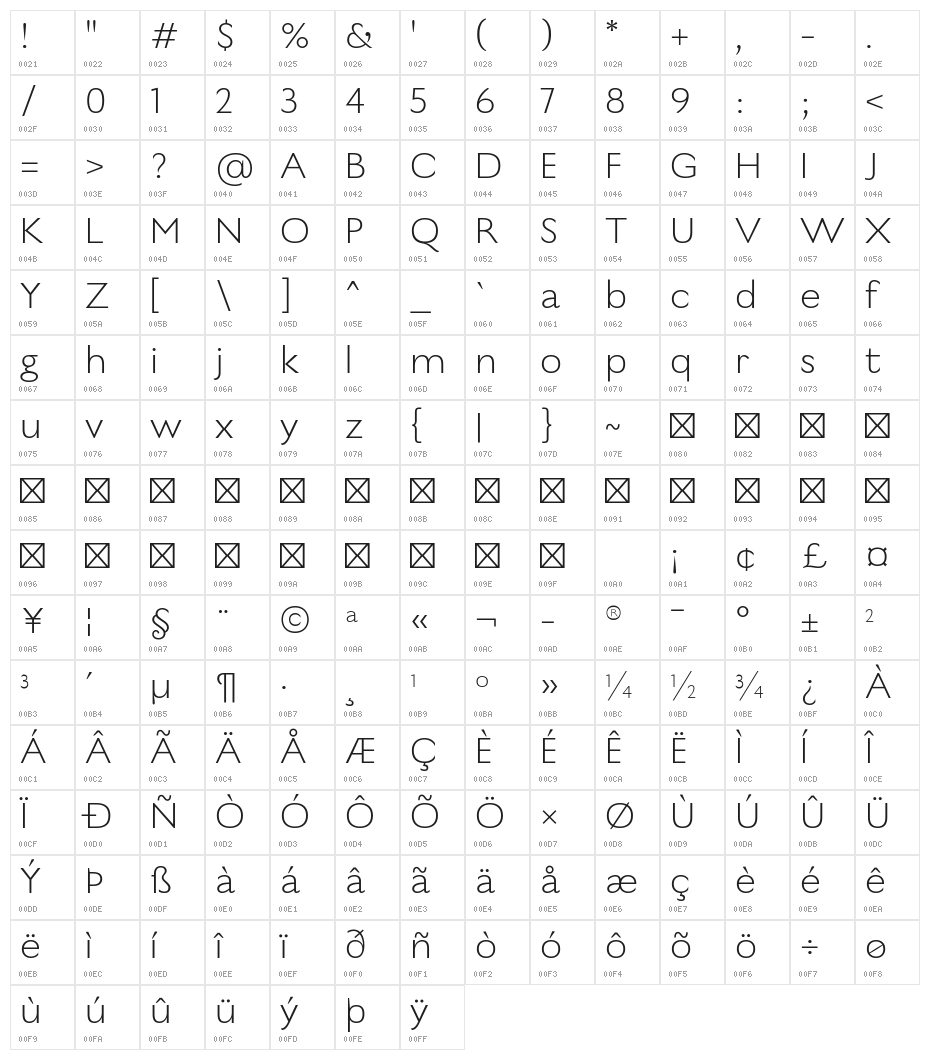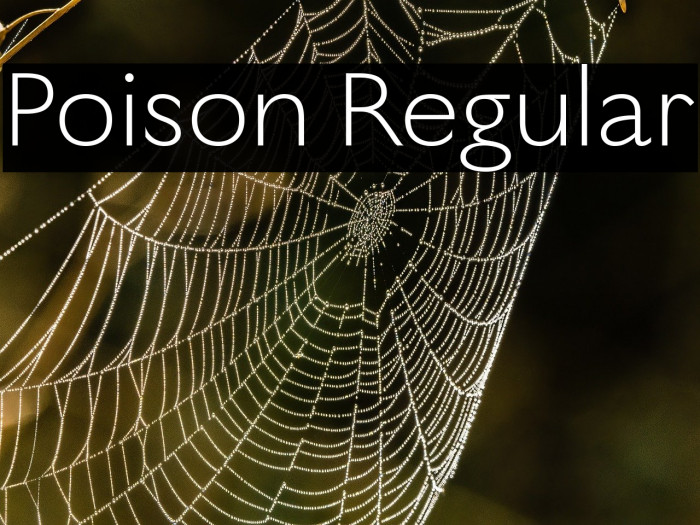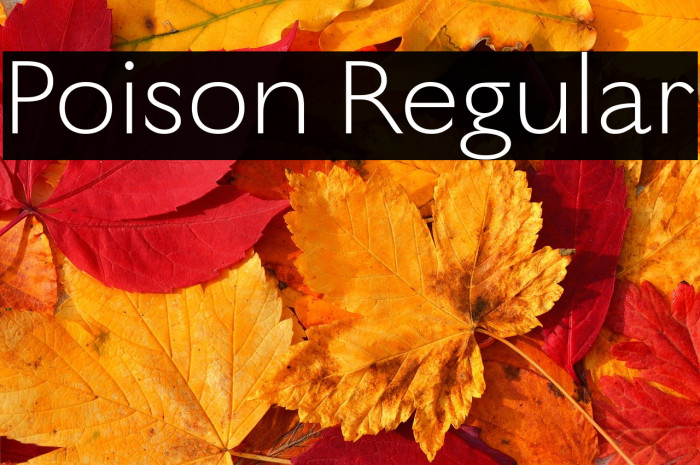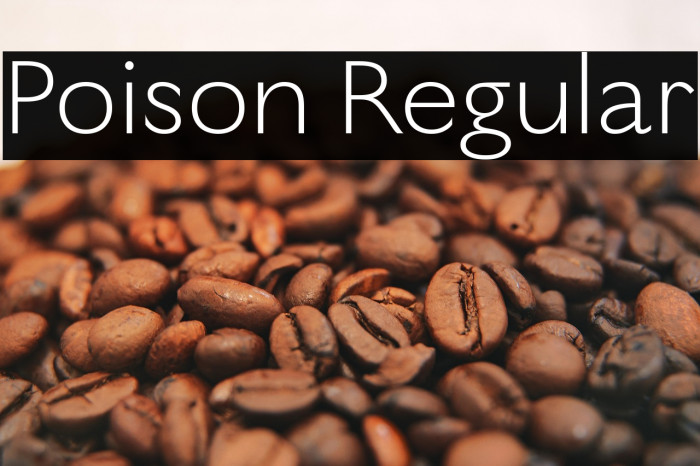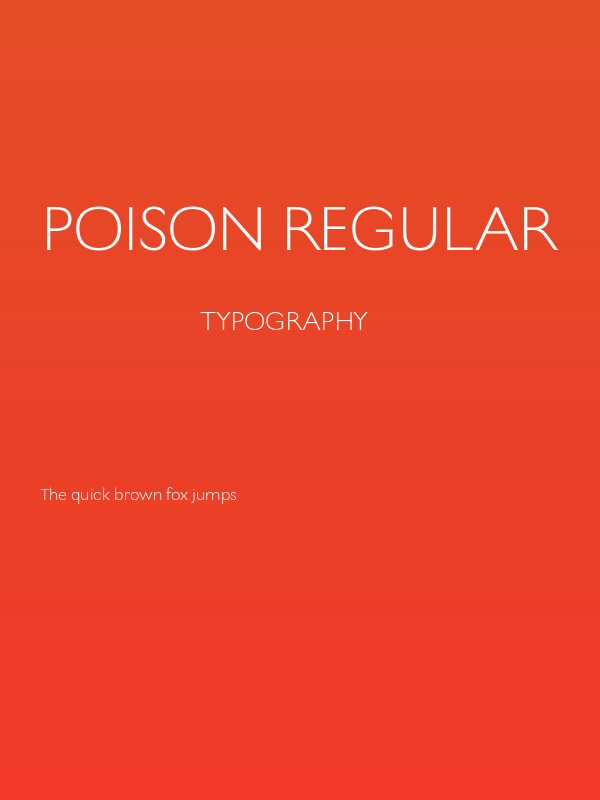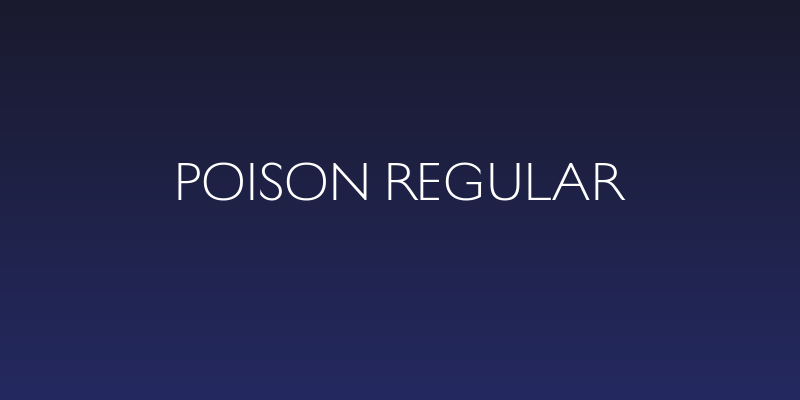
Poison Regular Font
Poison Regular Description
This font features a clean and modern sans-serif design with a geometric structure. The characters are evenly spaced, providing a balanced and harmonious appearance. The uppercase letters are bold and assertive, while the lowercase letters maintain a consistent and smooth flow. The numerals are clear and legible, making them suitable for various applications. Special characters are well-defined, enhancing the font's versatility. The overall style is minimalistic, making it ideal for contemporary design projects.
| Proposed Projects | Ideal for branding, web design, advertising, and editorial layouts. |